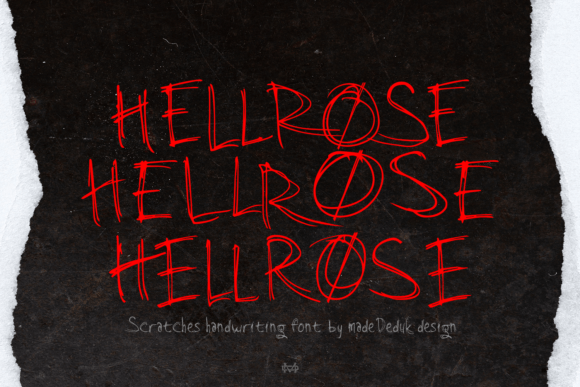
Introducing Hellrose Font, a captivating and expressive display font designed to bring your creative projects to life! Created by madeDeduk, this unique font is perfect for adding a touch of elegance and charm to your designs, particularly for Christmas cards.
With its hand-drawn scratches and 50+ ligatures, Hellrose Font offers a truly authentic and organic feel. Each character is crafted with meticulous attention to detail, resulting in a font that exudes personality and character.
Whether you're working on branding, posters, logos, invitations, writing, or headings, Hellrose Font will elevate your designs to new heights. Its versatility allows it to seamlessly adapt to various styles and themes, making it a must-have for any designer or creative enthusiast.
Stand out from the crowd and make a lasting impression with Hellrose Font. Its captivating and eye-catching aesthetics will capture the attention of your audience, leaving them mesmerized by the beauty and uniqueness of your designs.
Embrace the festive spirit with Hellrose Font's three alternative styles, perfect for creating stunning Christmas cards that truly stand out. The font's versatility ensures that you can use it for a wide range of projects beyond the holiday season, allowing you to unleash your creativity all year round.
Unlock the full potential of your designs with Hellrose Font. Transform ordinary words into extraordinary works of art, evoking emotions, and captivating your audience with the power of typography. Let Hellrose Font be your secret weapon in creating visually stunning and impactful designs.